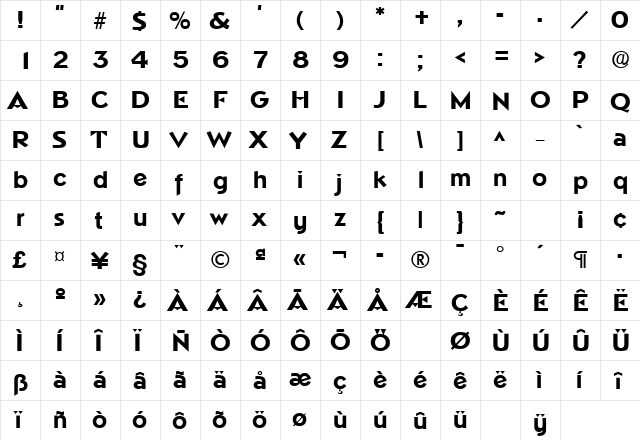
Napoli Bold
Design Context for Napoli Typeface
Napoli is a composed and adaptable typeface that performs quietly and consistently across a wide range of design contexts. Its bold stroke weight gives it real presence on the page.